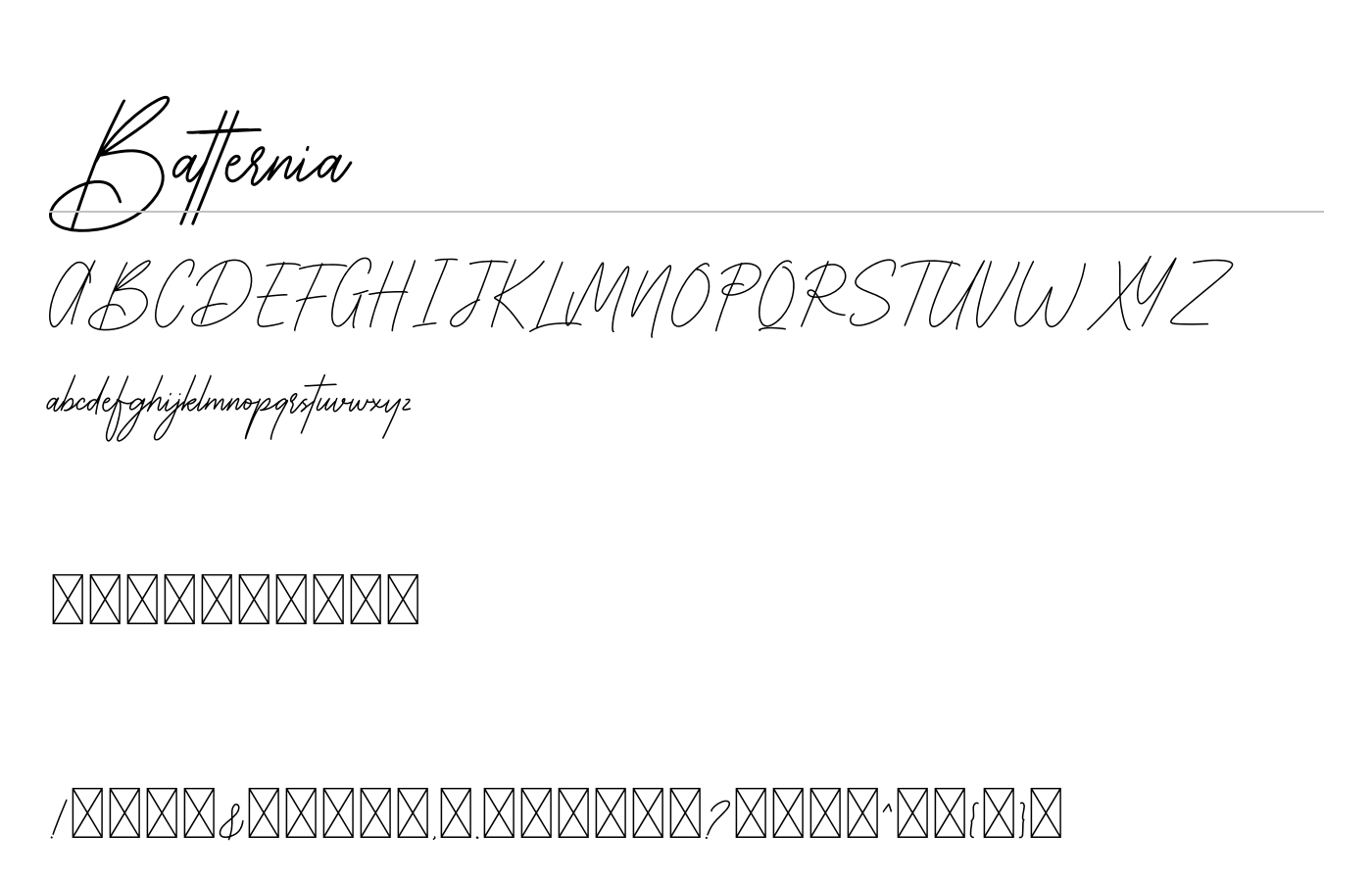
Batternia is a delicate, handwritten script font with a slender, flowing style that combines both uppercase and lowercase letters in a charming, elegant way. Its light weight and tall, narrow letterforms create a refined and graceful look, making it ideal for invitations, branding, and other designs that seek a personal, sophisticated touch. This font works best in contexts where a subtle, stylish handwriting effect adds warmth and character.
Batternia Font
About Batternia Font